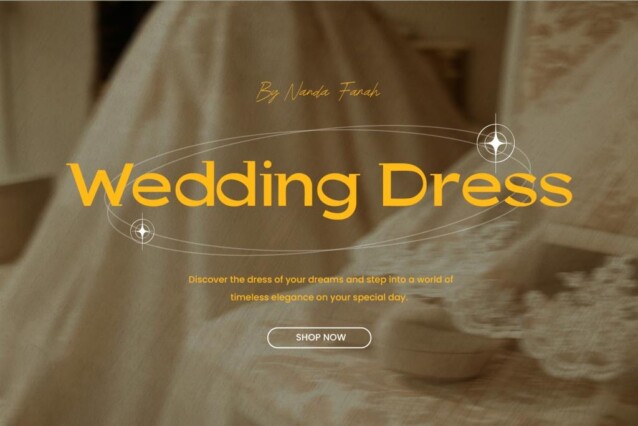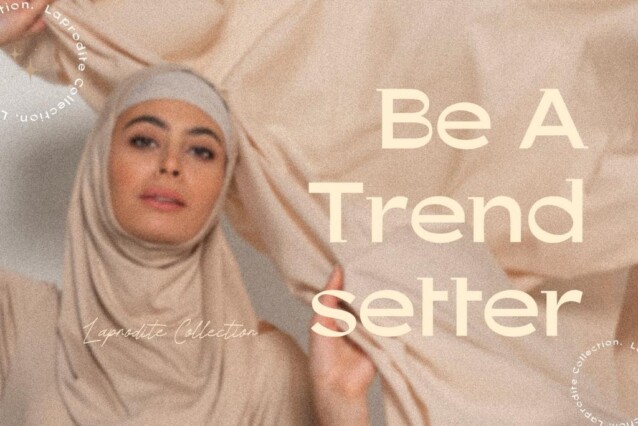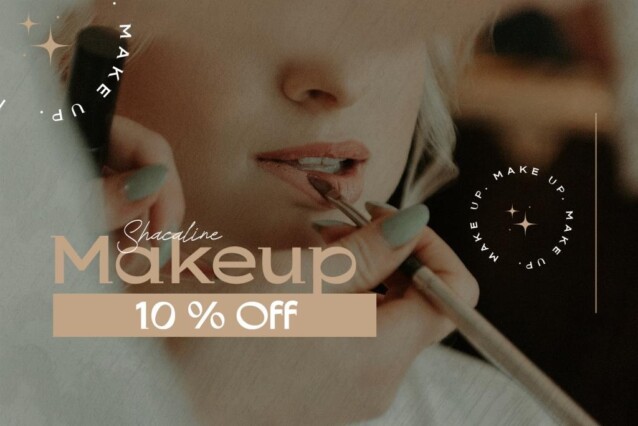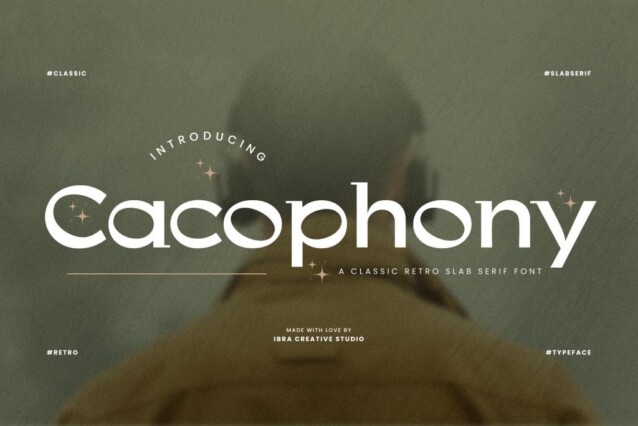
Cacophony Font is a stunning typeface that combines sleek and exotic characteristics. Its bold, sturdy letterforms are characterized by thick, consistent strokes and squared-off serifs, evoking a sense of robustness and confidence reminiscent of mid-20th century typography.